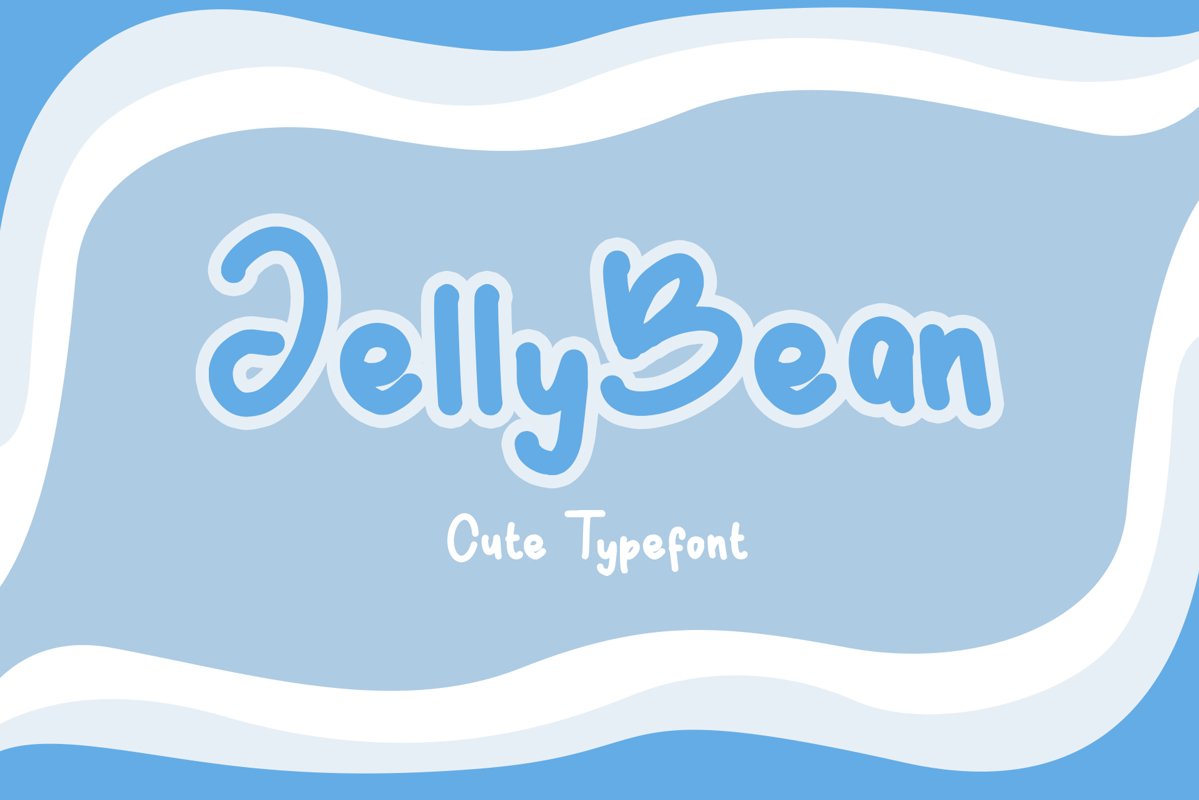
JellyBean || Cute & Playful Fonts
JellyBean
Introducing JellyBean - Cute & Playful Font
JellyBean is the perfect font for all your fun designs. The main font file is equipped with ordinary characters & multilingual support. Everything is made with the same pen so you can be sure they will work well together! It is suitable for you to use in making t-shirt design, quote, label, packaging, logo type, or long writing.
JellyBean feature: